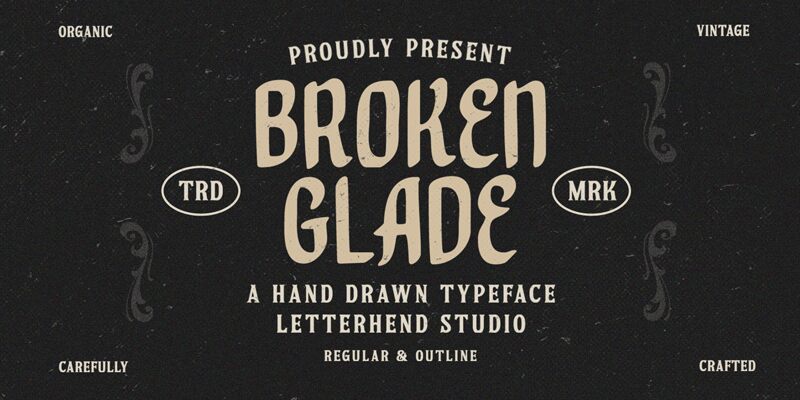
Broken Glade, designed by Letterhend Studio, is a captivating display font that exudes a sense of rustic sophistication. Its condensed width and striking, organic letterforms command attention, creating a striking visual impact. The font's intricate details and imperfect edges evoke a sense of natural beauty, conveying a captivating blend of strength and vulnerability. Broken Glade's bold, yet elegant, aesthetic makes it a versatile choice for a wide range of design applications, from eye-catching headings and logos to attention-grabbing branding and editorial layouts.
This font's unique character and adaptability make it an excellent selection for projects seeking to convey a sense of authenticity, individuality, and a touch of the unexpected. Whether designing for the great outdoors, crafting a vintage-inspired brand, or infusing a modern aesthetic with a touch of artisanal charm, Broken Glade by Letterhend Studio offers a compelling typographic solution.